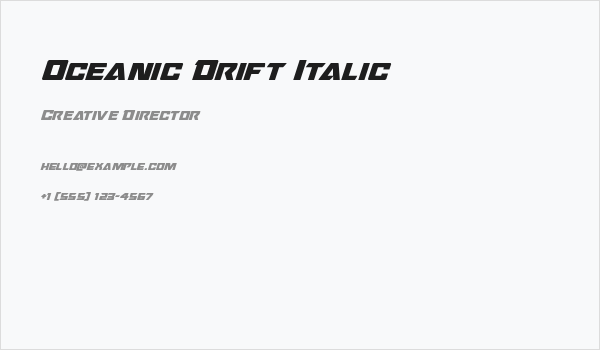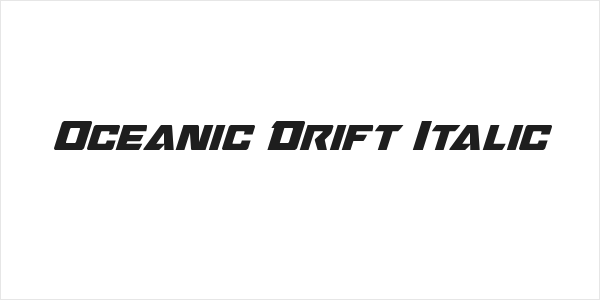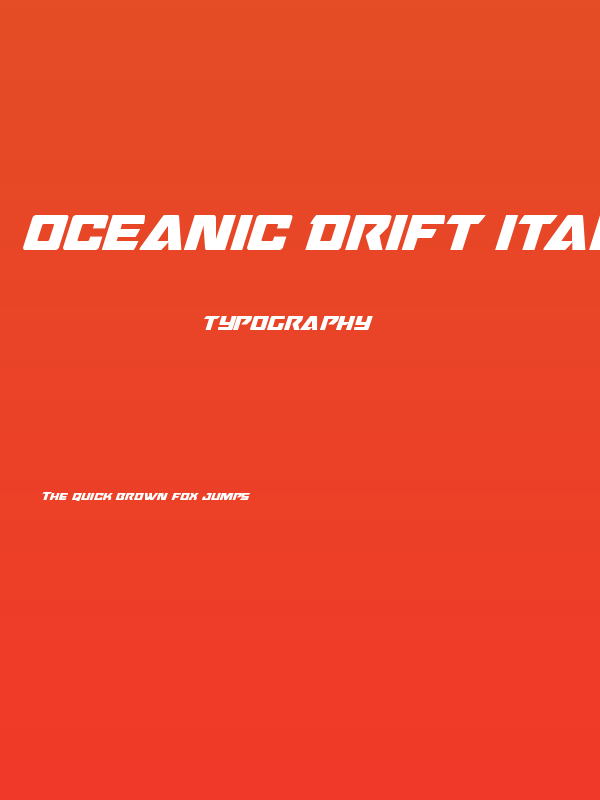
Oceanic Drift Italic Font
Oceanic Drift Italic Description
This font features a bold and dynamic italic style, characterized by its sharp angles and strong geometric forms. The letters are slightly slanted, giving a sense of motion and energy. The uppercase and lowercase characters maintain a consistent weight, providing a uniform appearance across the text. The numerals and special characters follow the same design principles, ensuring cohesion throughout. The font's boldness and distinct style make it suitable for impactful designs where attention is key.
| Proposed Projects | Ideal for sports branding, dynamic posters, automotive designs, and modern advertising campaigns. |